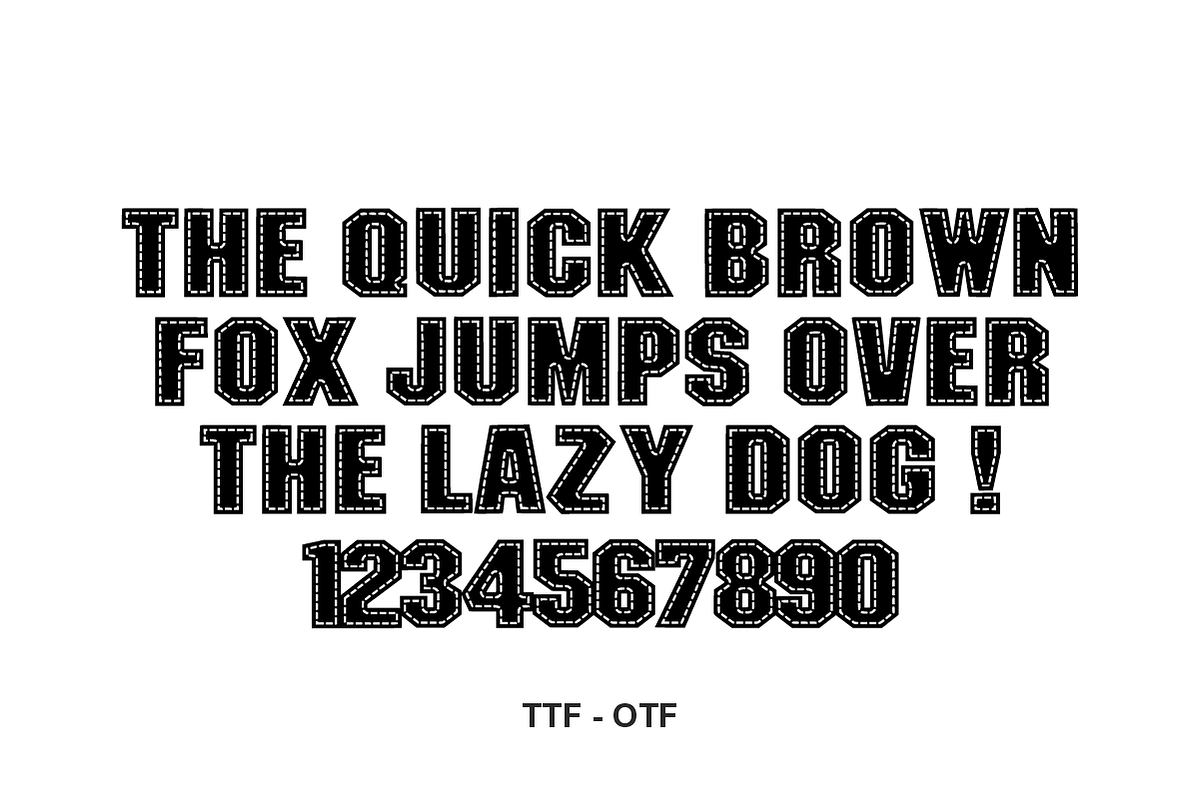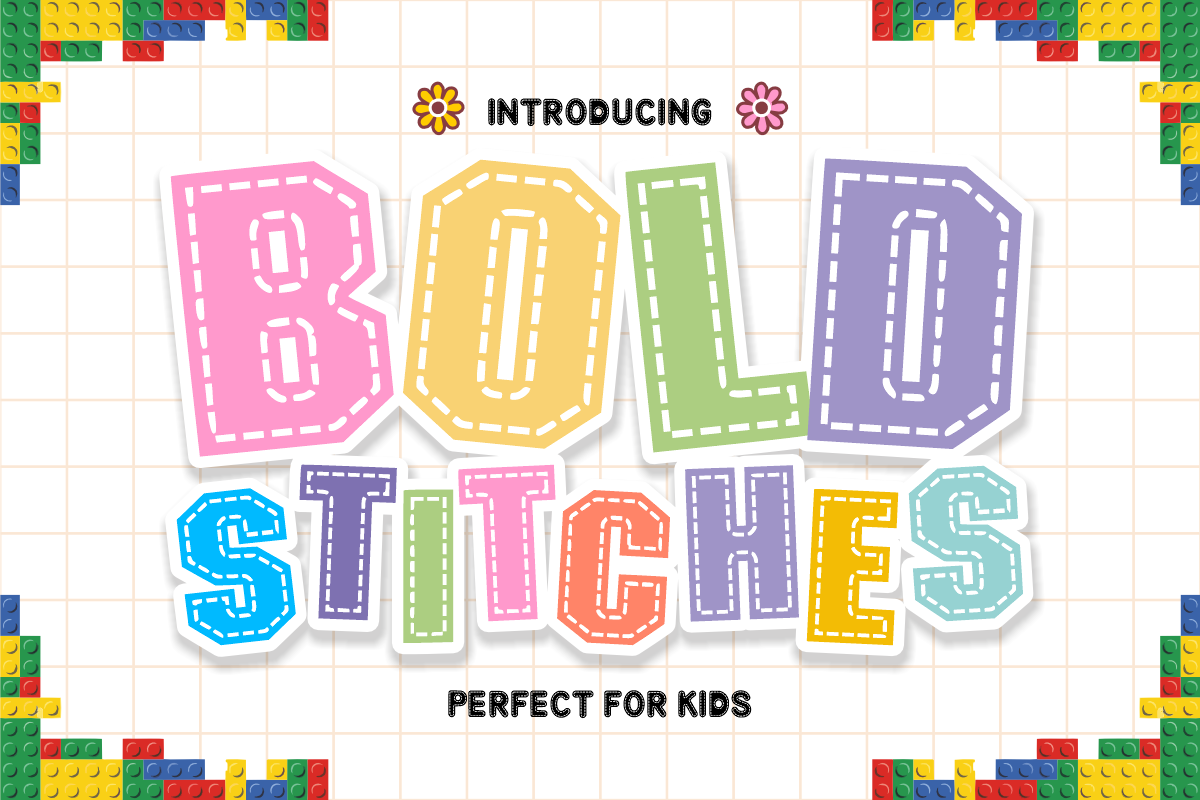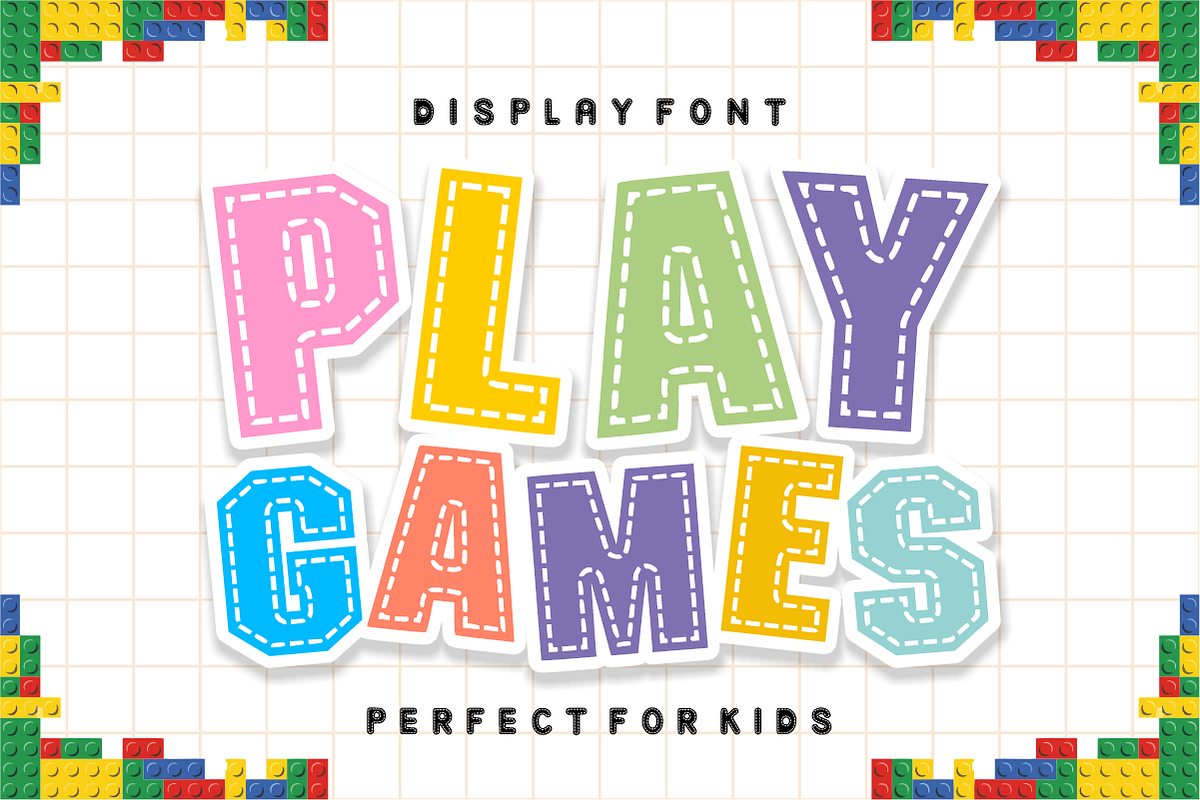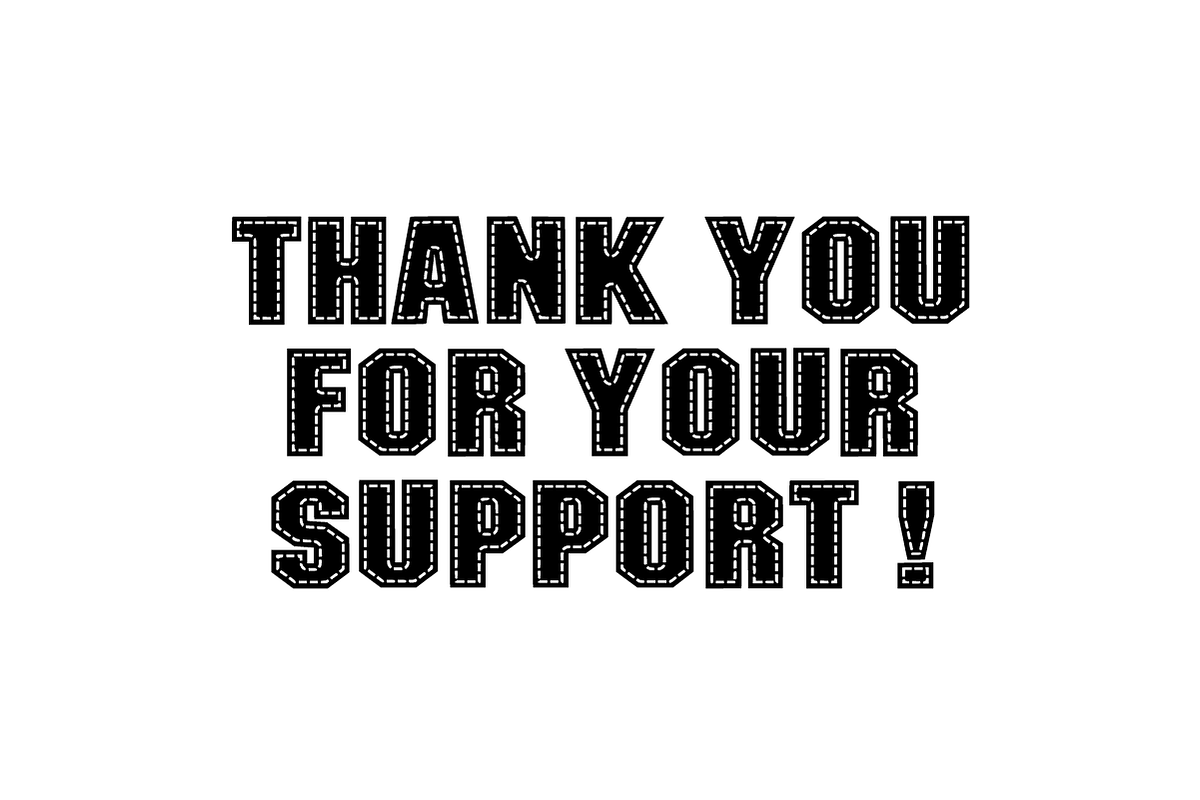
Bold Stitches – Handcrafted Font
Bold Stitches – Playful & Chunky Handcrafted Display Font 🧵✨
Add a charming, handmade touch to your creative projects with an extra bold personality!
Bold Stitches is a heavy, bubbly display font featuring a unique "stitched" dashed-line detail running through the center of every character. This playful texture gives your text an instant embroidered, quilted, or handcrafted look, making it the perfect choice for designs that need to feel warm, friendly, and energetic.
While the preview showcases a vibrant, multi-colored sticker aesthetic, please note that this is not a color font. This gives you full creative freedom to apply any color palette, gradient, or shadow effect in your favorite design software to match your specific brand.
Unique Stitched Detail: The built-in dashed lines add a distinctive "crafty" texture that stands out from typical bold fonts.
Ultra-Bold & Legible: Its thick, rounded silhouette ensures that your headlines are eye-catching and easy to read from a distance.
Perfect for Layering: Easily add an offset outline or drop shadow to create a high-impact, 3D "sticker" look.
Craft-Friendly: The clean, smooth outlines are optimized for use with vinyl cutting machines like Cricut and Silhouette.
Uppercase Letters (A-Z): Massive, expressive characters with consistent stitch detailing.
Numbers (0-9) & Essential Symbols: Everything you need for complete, professional layouts.